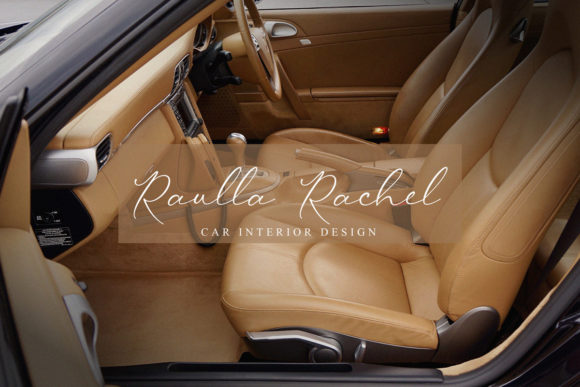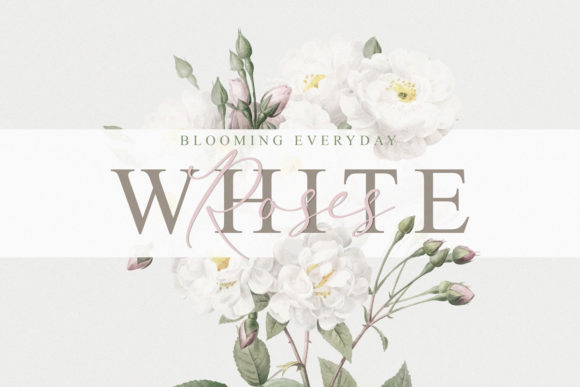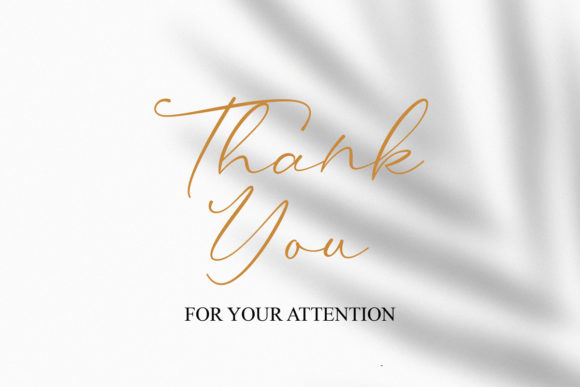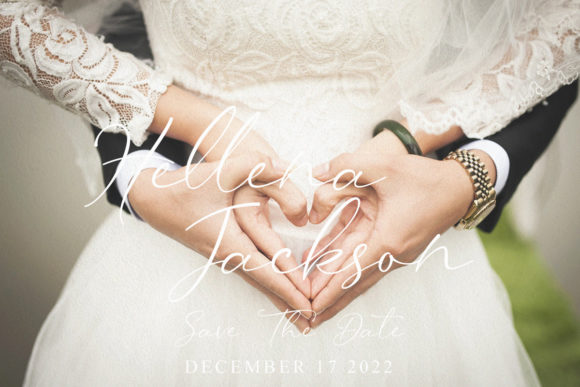
About Wistania Font
Wistania is made with the deepest outpouring of the heart. Each stroke contains the meaning of love, affection, attention, happiness and joy. This font is PUA encoded which means you can access all of the glyphs and swashes with ease!